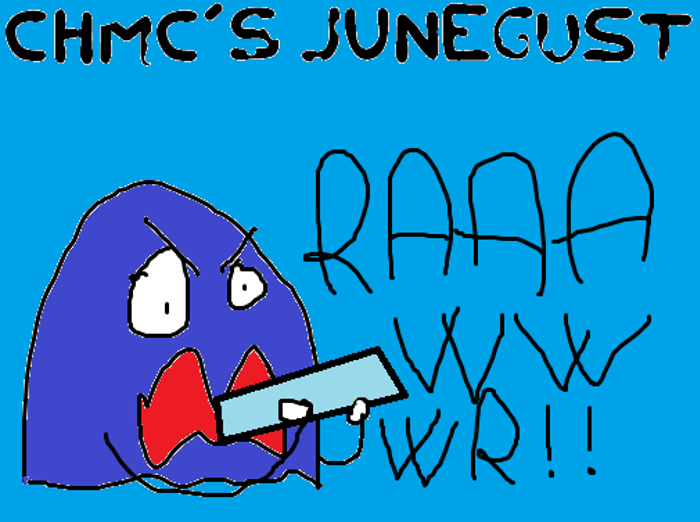
Junegust Font
Junegust is a grungy handwritten font based on Ray Larabie's Junegull.
It has grungy feels of Japanese Kaiju films.
For best results, both uppercase and lowercase should be mixed together.